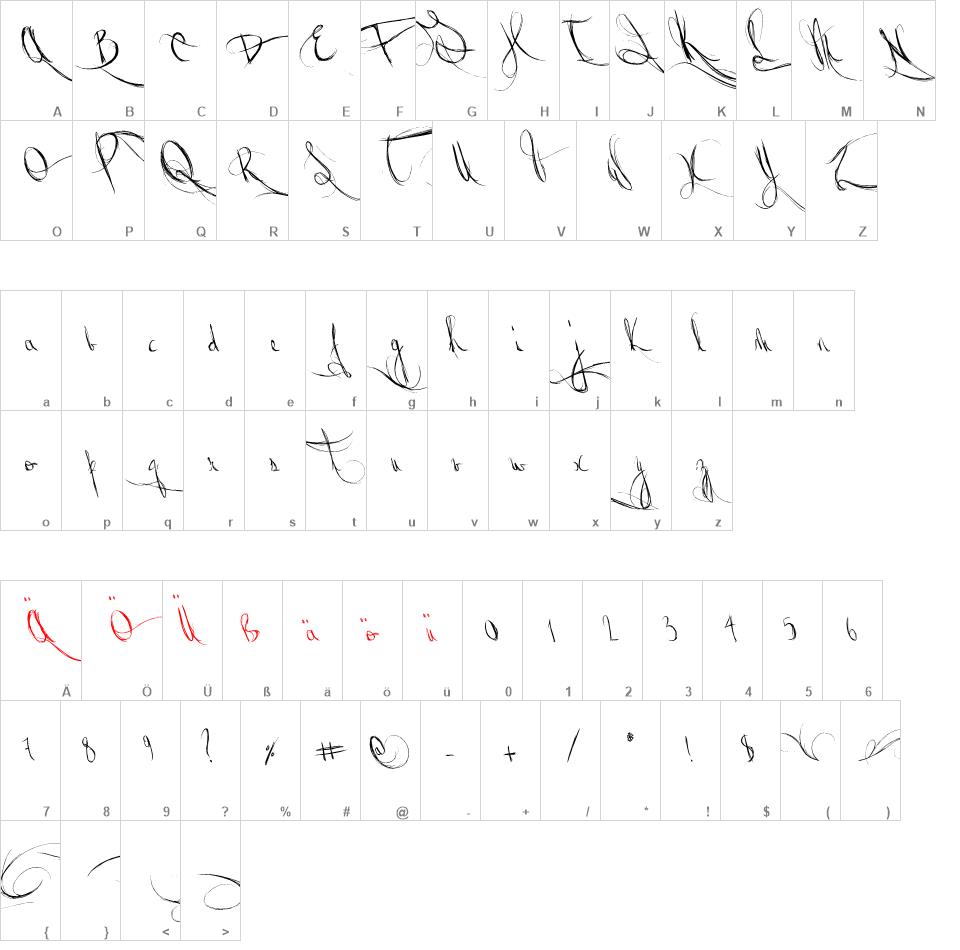
Jellyka Waterways Seafarers
The tail chart in the zip might help to choose which character to add at the end or at the beginning of a title or something.